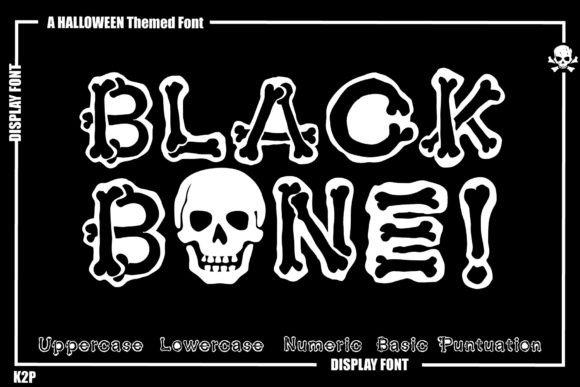
Step into the realm of the macabre and bewitching with Black Bone!, the font that embodies the spirit of Halloween like no other. This captivating display font is a testament to the art of eerie elegance, boasting a personality that dances between the spooky and the stylish.
Crafted by the ingenious mind of KtwoP, Black Bone! commands attention with its jagged edges and haunting curves, reminiscent of gnarled branches reaching out from a haunted forest. Each letterform is a unique masterpiece, adorned with intricate details that evoke a sense of mystery and intrigue.
Unleash your creativity and let Black Bone! cast its spell on your Halloween-themed designs. Whether you're conjuring up invitations that ooze with eerie charm, crafting posters that send shivers down the spine, or creating social media graphics that captivate and enchant, this font is your secret weapon.
Black Bone! isn't just for Halloween, though. Its versatility extends beyond the realm of the supernatural, making it a perfect choice for any project seeking a touch of the unconventional.
Design logos that command attention, headlines that demand to be read, and branding materials that leave a lasting impression. Black Bone! is the perfect font for any project that dares to be different, to stand out from the mundane and embrace the extraordinary.
So, embrace the allure of darkness, delve into the world of the whimsical and the weird, and let Black Bone! be your guide. This font is more than just a collection of letters; it's a portal to a world where imagination runs wild and creativity knows no bounds. Download Black Bone! today and unleash the magic within.
With Black Bone!, you'll embark on a typographic adventure that will leave you spellbound. Its bold and striking presence will cast a haunting yet enchanting aura over any design, leaving your audience captivated and eager for more.
Don't let the ordinary hold you back. Embrace the extraordinary with Black Bone!. Step into the realm of the macabre and let your creativity soar.